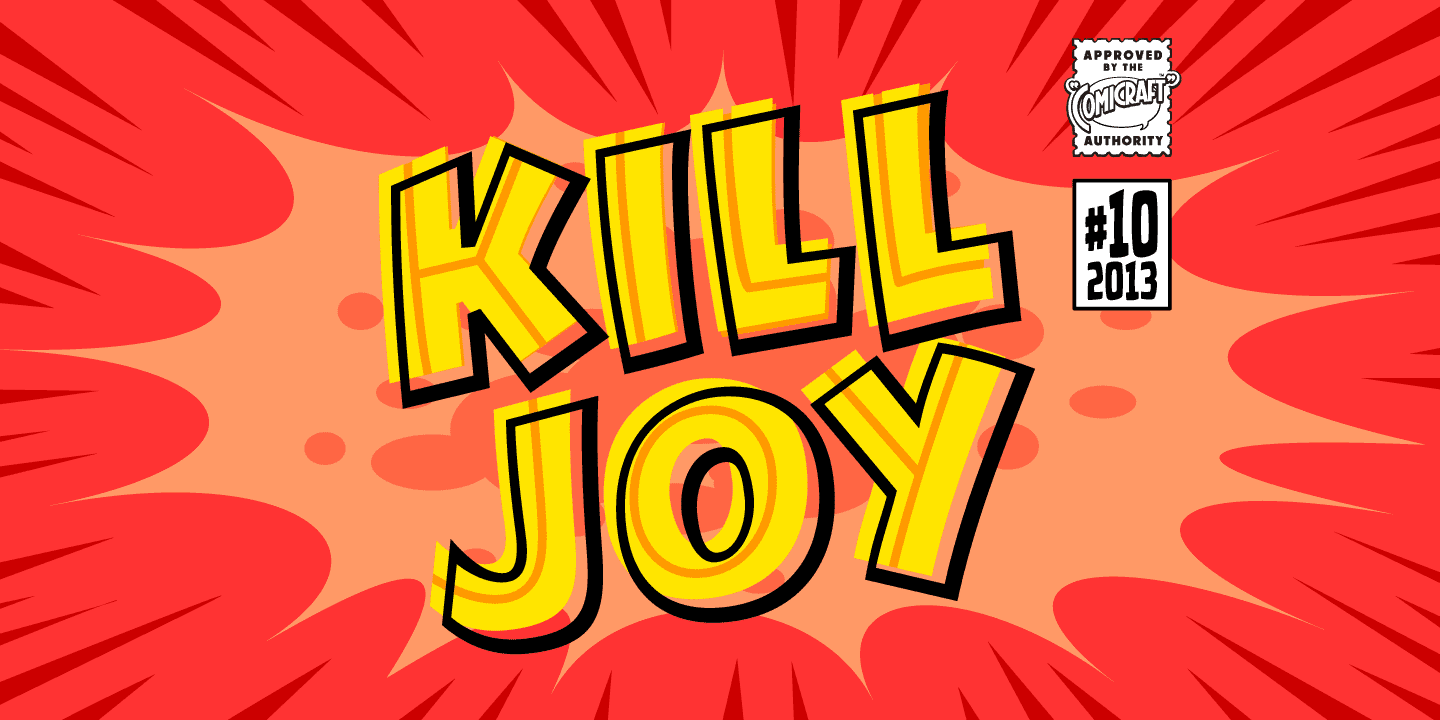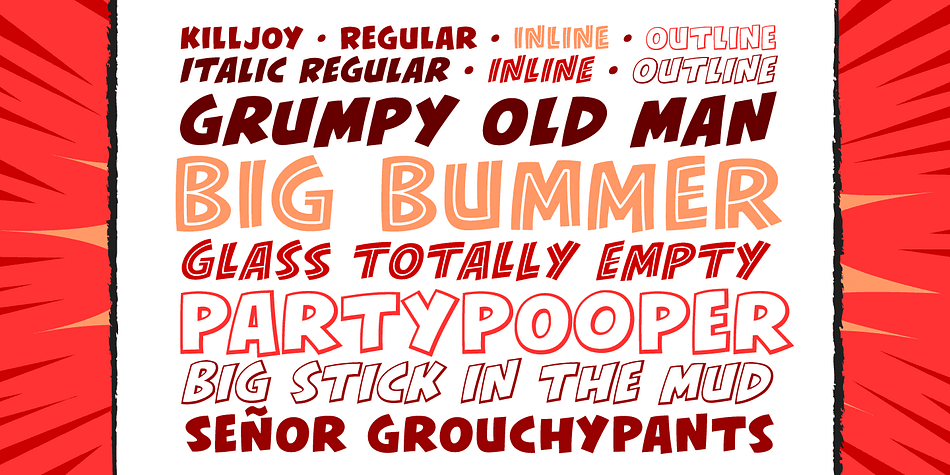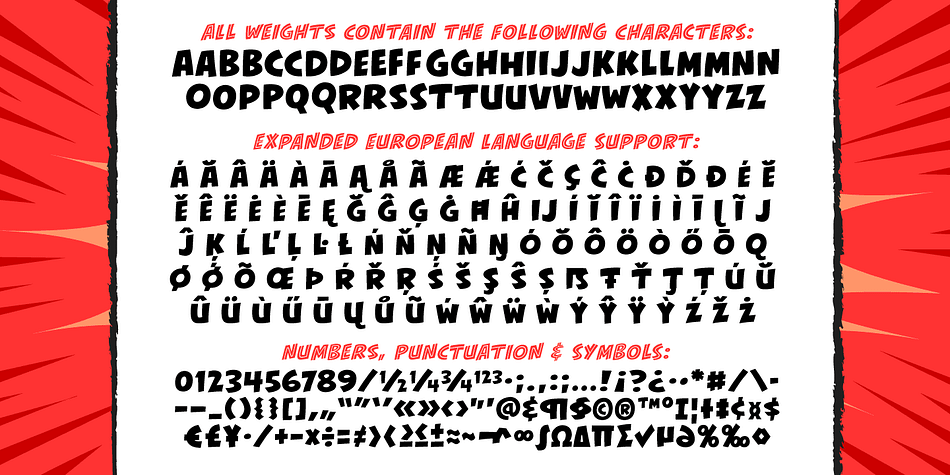
Designed by John Roshell, Kill Joy is a comic and hand display font family. This typeface has six styles and was published by Comicraft.
S P O I L E R A L E R T !
We don’t want to be a drag, a wet blanket or a spoilsport, but we’re here to tell you that everything before “but” is nothing! Yep, if you’re a merrymaker, a carouser, a jester, a reveler or a live wire, we’re here to poop your party with our latest knicker-twister, KILLJOY!
Call us cynics, call us crabs, grouches, grumpy old men, sourpusses or bores, but we’re the kind of Killjoys who just have to make some noise… sound effects (sic) everybody, so listen up even if you can’t handle the truth… and here’s OUR truth; Keep Calm and be a Fabulous Killjoy! Yes, it’s easy to be mean—but why should anybody else have all the fun? Or all the fonts?
Six fonts (Regular, Italic, Inline Regular, Inline Italic, Outline Regular, Outline Italic) with alternate characters.